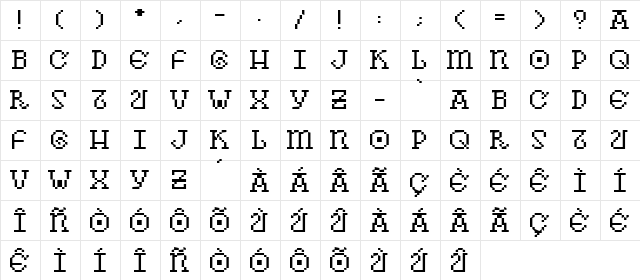
As pedras da Belle Otero Regular
| Designer | Ipanema Grᦩca |
Design Context for As pedras da Belle Otero Typeface
As pedras da Belle Otero is a composed and adaptable typeface that performs quietly and consistently across a wide range of design contexts.